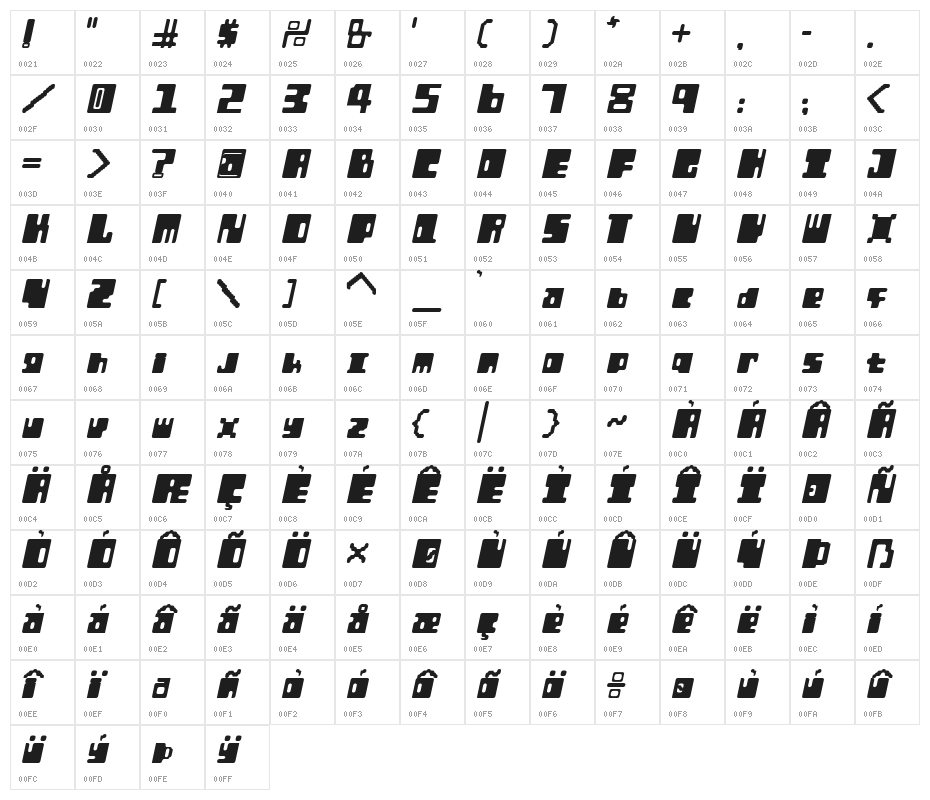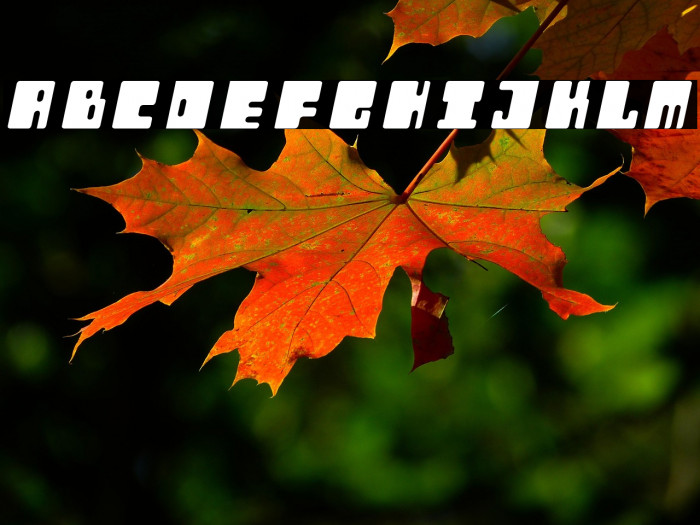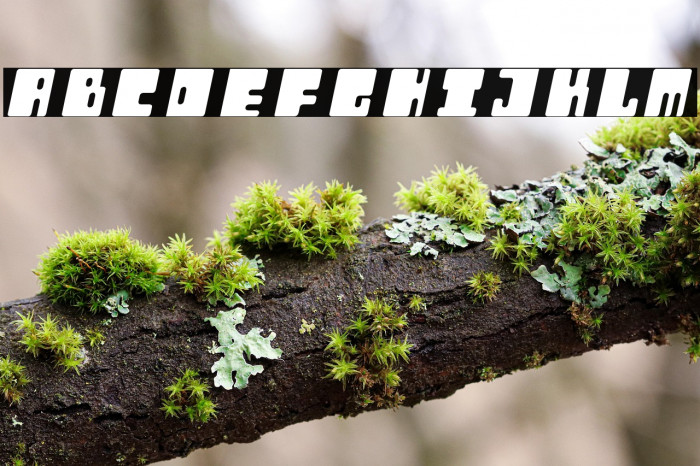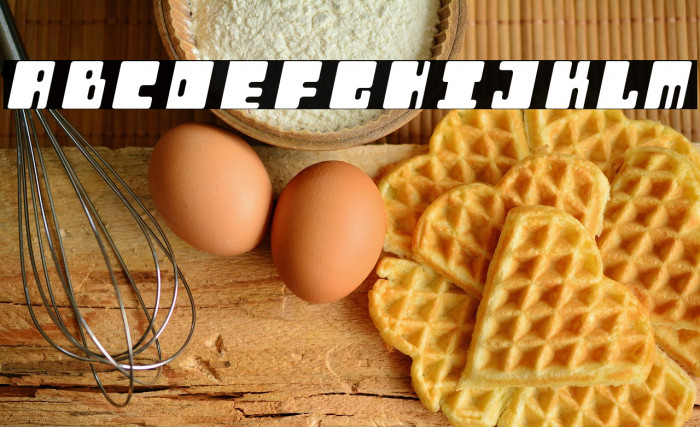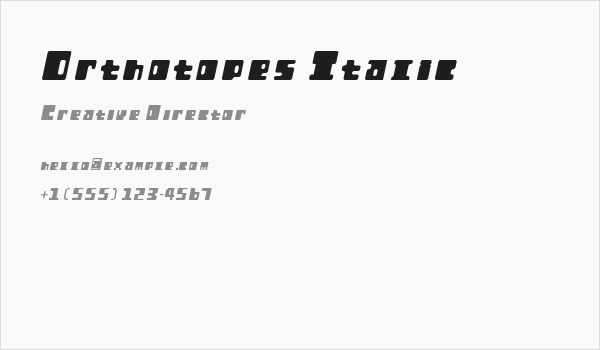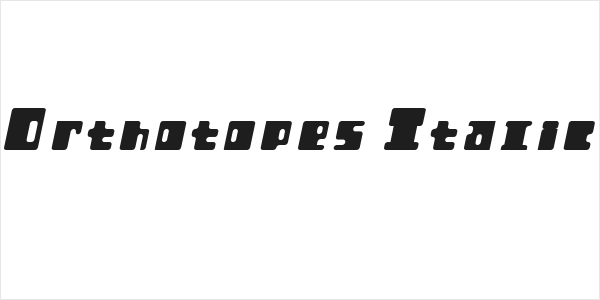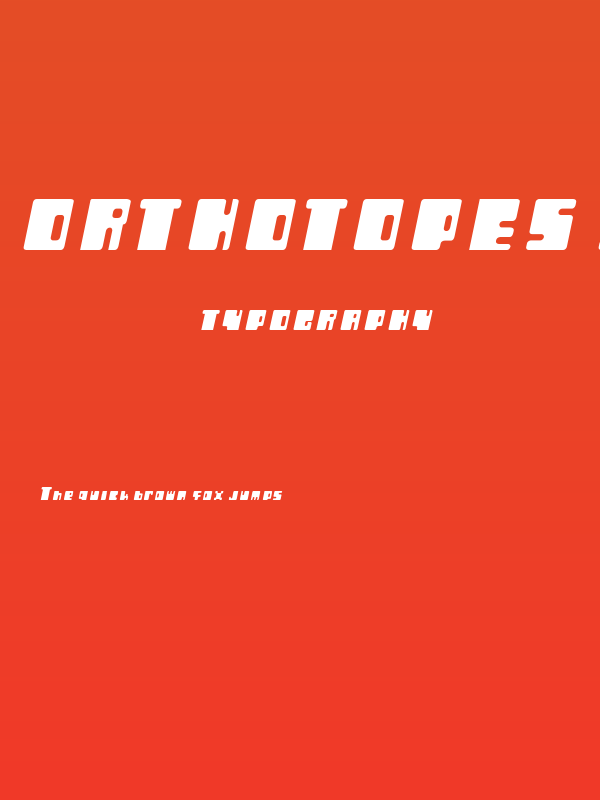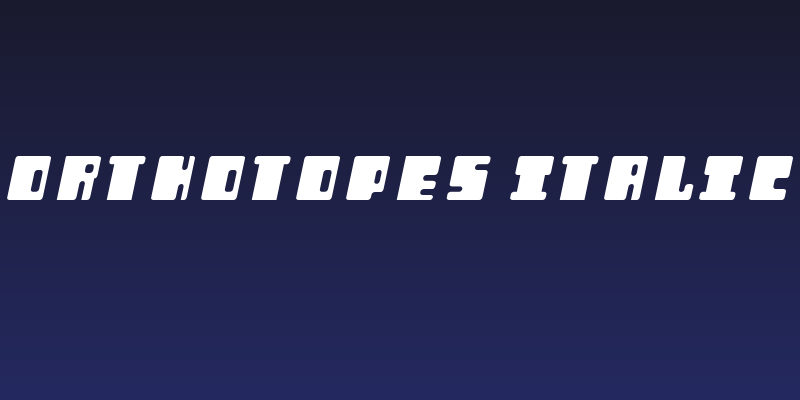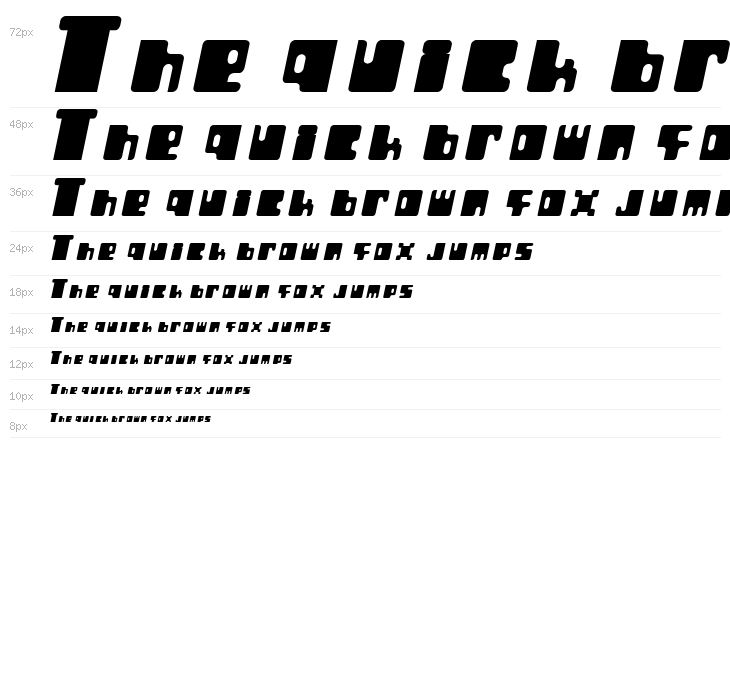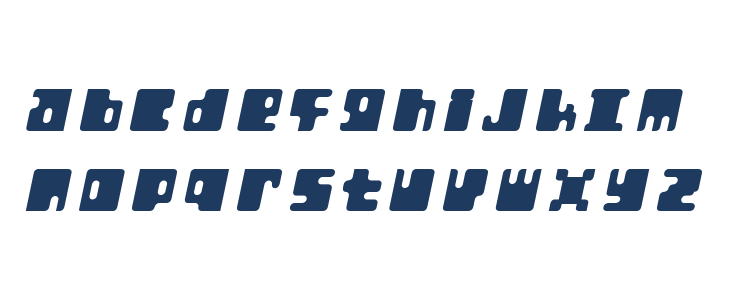
Orthotopes Italic Font
Orthotopes Italic Description
This font features a bold and dynamic design with a distinctly modern flair. The characters are italicized, giving a sense of motion and energy. The strokes are thick and uniform, contributing to a strong visual impact. The font includes both uppercase and lowercase letters, numerals, and a variety of special characters. The overall style is geometric with angular cuts and a slightly condensed appearance, making it suitable for attention-grabbing headlines and logos. The consistent stroke width ensures clarity and legibility, even at smaller sizes.
Proposed ProjectsIdeal for sports branding, dynamic posters, modern logos, and eye-catching headlines.